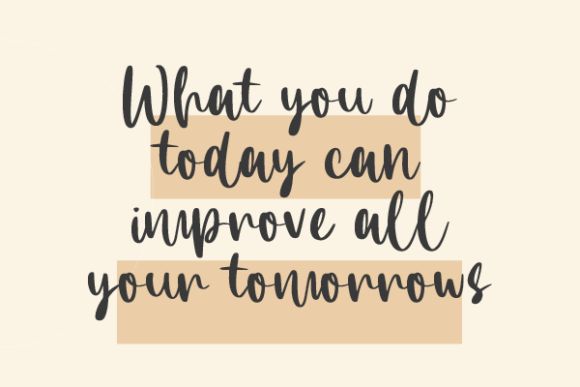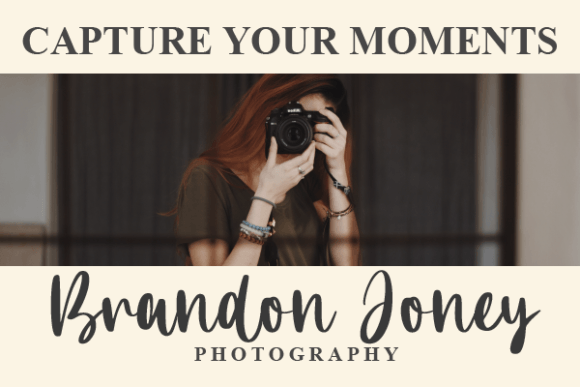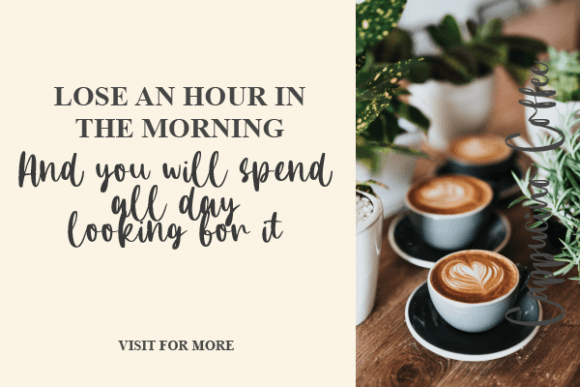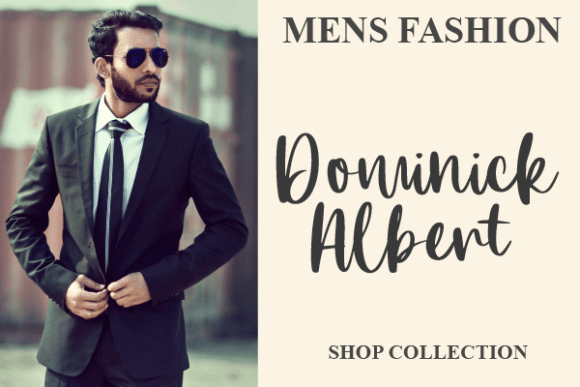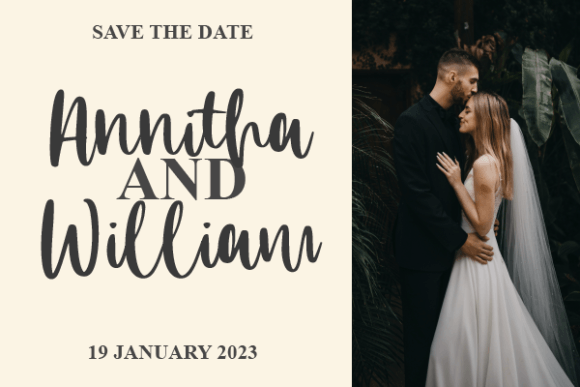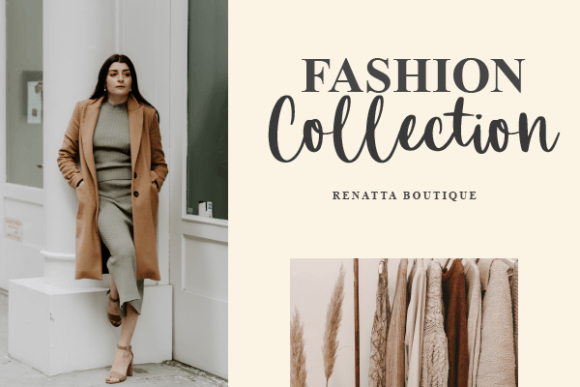
Introduction to Sandryna Font
Imagine you’re flipping through the pages of a high-end fashion magazine, and you come across a stunning editorial spread that catches your eye. The words dance across the page in elegant curves, drawing you in with their sophistication and style. This is the kind of design magic that the Sandryna Font can bring to your creative project.
As a valuable design resource, the Sandryna Font is perfect for fashion branding, editorial designs, and any project where you want to convey a sense of high quality and refinement. With its smooth curves and elegant feel, this font is sure to elevate your design to the next level.
Key Features of Sandryna Font
- High-quality design resource with a unique and elegant style, perfect for creative projects.
- Includes a wide range of characters, including Latin, Cyrillic, and Greek alphabets, making it suitable for diverse creative projects.
- Designed with versatility in mind, making it an ideal choice for various design applications, from logos to typography.
Honest Review: Sandryna Font
As a designer, I’m always on the lookout for high-quality design resources that can elevate my creative projects. I recently had the chance to try out the Sandryna Font, and I must say, it’s been a pleasant surprise. ✨
The Sandryna Font is a beautifully crafted font that’s perfect for a variety of design projects. It features a modern and elegant design aesthetic, making it an excellent choice for anyone looking to add some sophistication to their work. One of the standout features of this font is its transparent background, which allows for seamless integration with any design element.
Here are some of the key features that I like about the Sandryna Font:
- High-quality design: The Sandryna Font is meticulously crafted, ensuring that it looks great in any context.
- Limited font sizes: While the Sandryna Font is available in a range of sizes, it’s not as extensive as some other fonts.
- No bold or italic options: This may be a limitation for designers who need to create bold or italic text.
Overall, I’m impressed with the Sandryna Font and would definitely recommend it to fellow designers. It’s a great resource to have in your toolkit, and it’s perfect for anyone looking to add some style to their creative projects. ⚠️ Just be aware of the limitations mentioned above.
Tips for Getting the Most Out of Sandryna Font
For the best results, use the Sandryna Font on a transparent background to achieve a clean and modern look. You can also experiment with different font sizes and colors to add visual interest to your design.
The Sandryna Font is a versatile design resource that can be used for a wide range of creative projects, including branding, logos, and marketing materials. Its high quality and unique design make it an excellent choice for anyone looking to add a touch of elegance to their work.